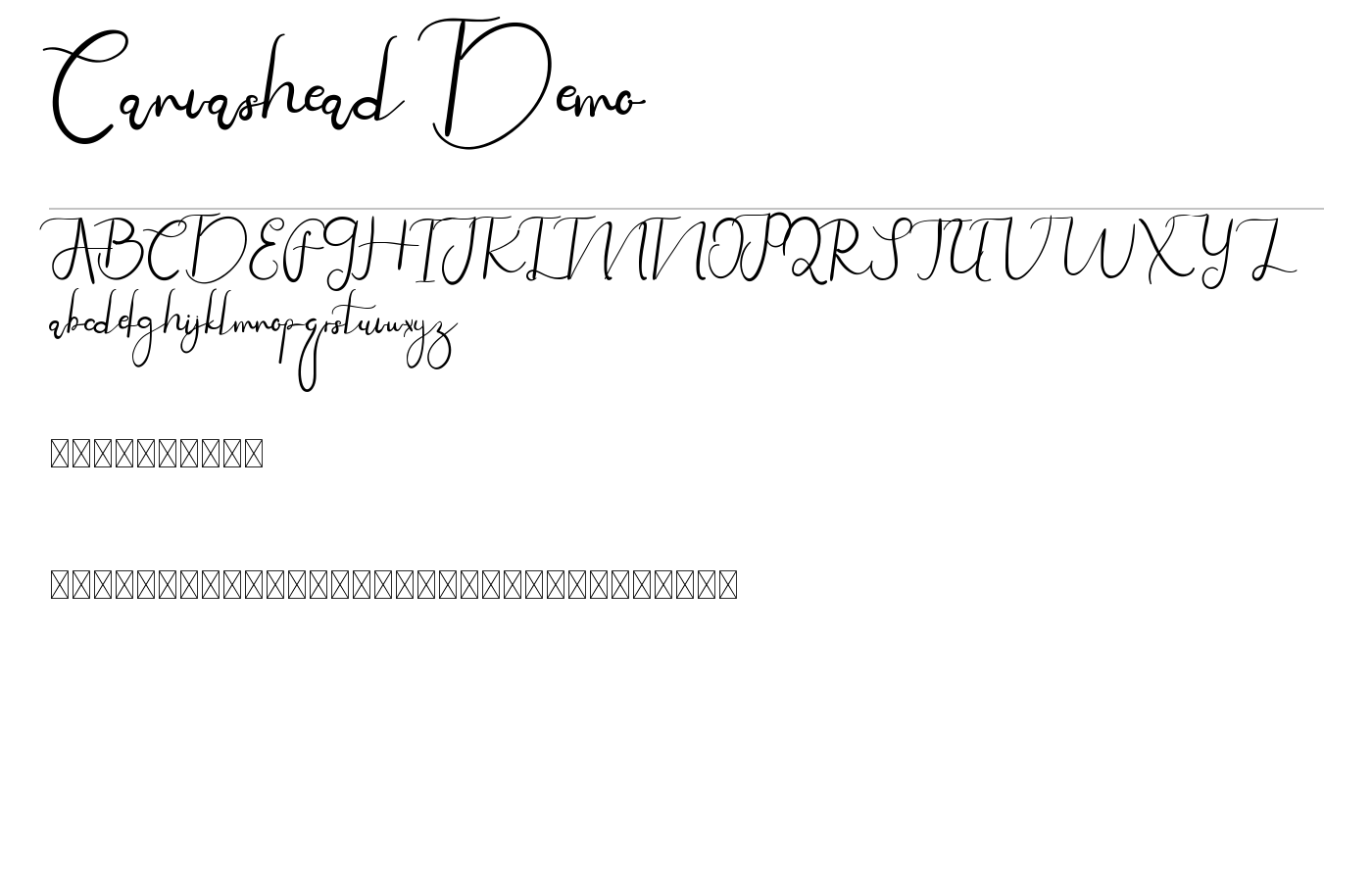
Canvashead Demo is a delicate, handwritten script font with slender, flowing strokes that create an elegant and personal feel. Its light weight and graceful curves make it ideal for invitations, branding, and creative projects that seek a sophisticated yet approachable touch. This font shines in designs where a charming, handcrafted look enhances a refined, artistic atmosphere.
Canvashead Demo Font
About Canvashead Demo Font
| Font family | Canvashead Demo Font |
| Designer | Saila Nurissalma & Suci Anita |